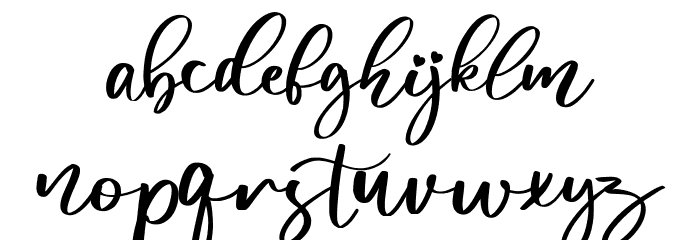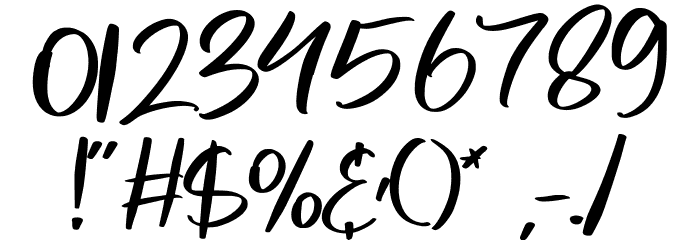
Abiland Font
This font exudes a lively and elegant script style, characterized by its flowing and interconnected letterforms. The uppercase letters are ornate, with sweeping curves and loops that give a sense of movement and grace. The lowercase letters maintain a consistent style, with smooth transitions and rounded edges, enhancing readability while retaining a decorative flair. The numerals are bold and slightly slanted, complementing the overall script style. Special characters are thoughtfully designed to match the font's aesthetic, making it versatile for various uses. The font's playful yet sophisticated appearance makes it suitable for creative projects that require a personal touch.
A lively and elegant script font with flowing, interconnected letterforms.
- Proposed Projects: Ideal for wedding invitations, greeting cards, branding, and logo design.
- Use Case: Logos, Invitations, Greeting Cards